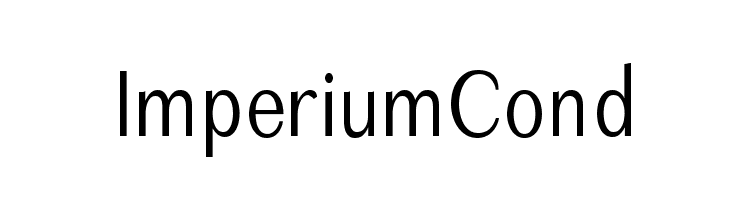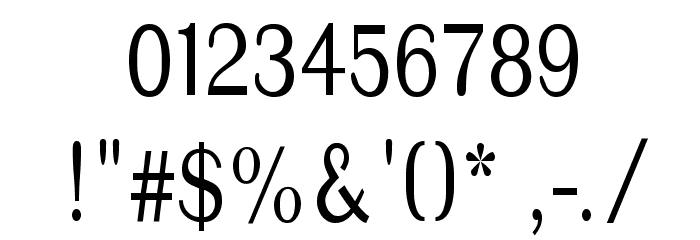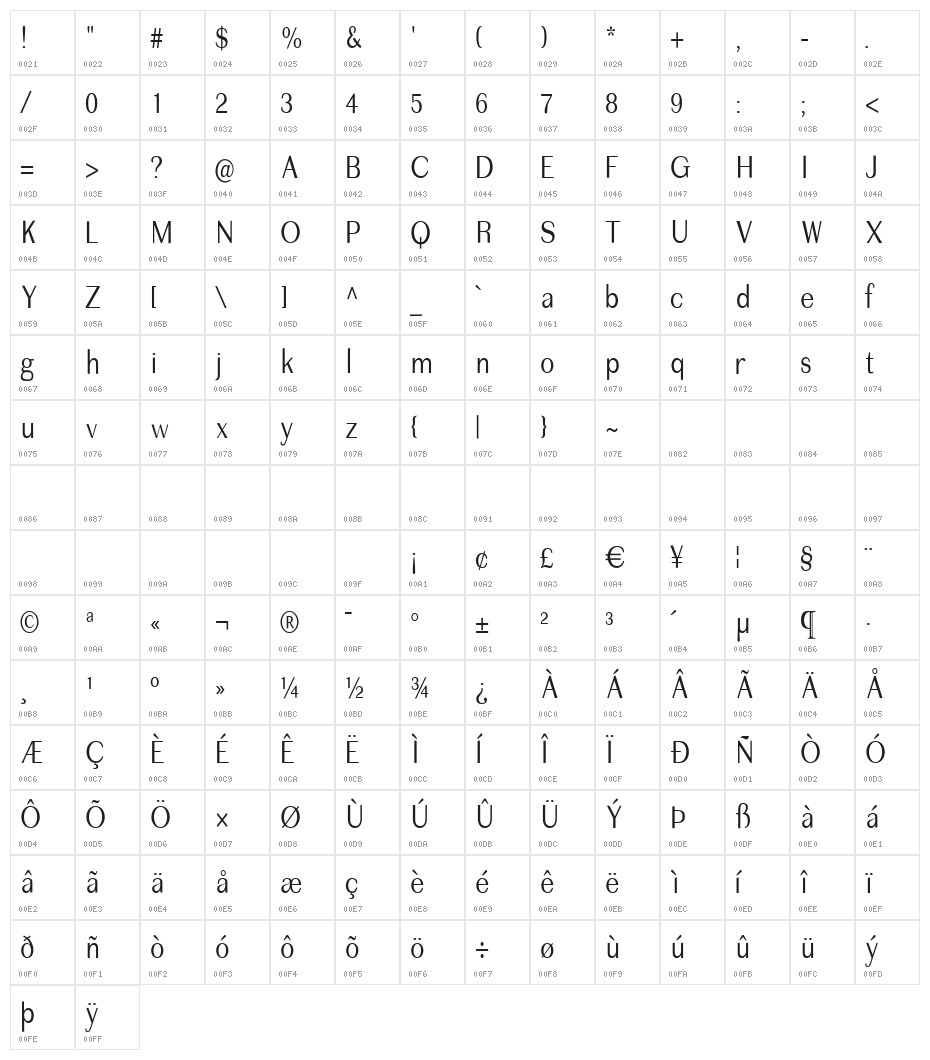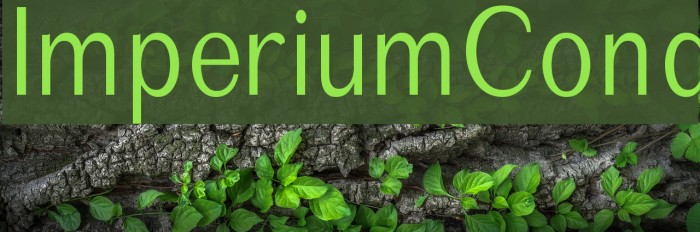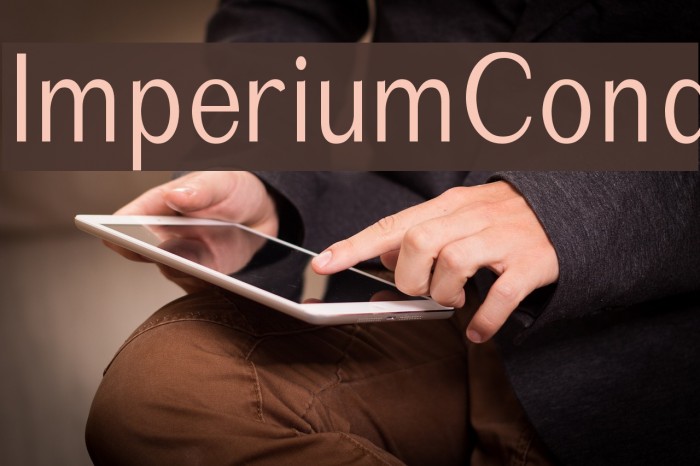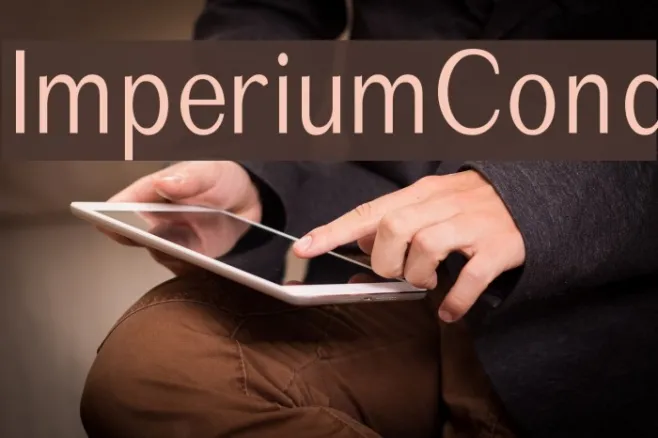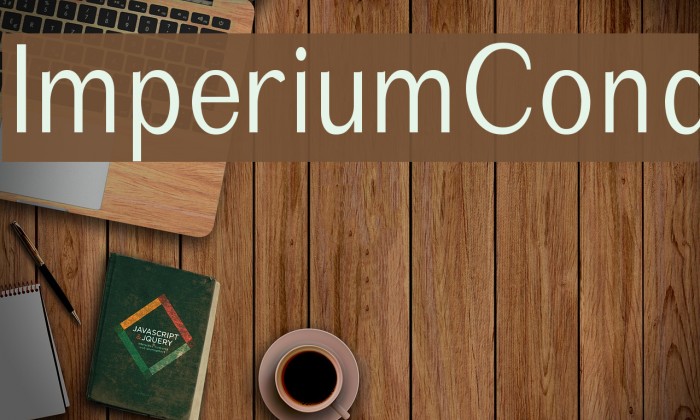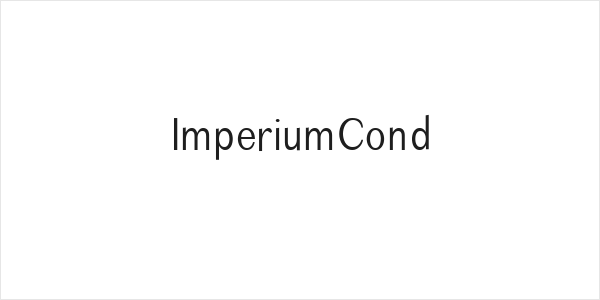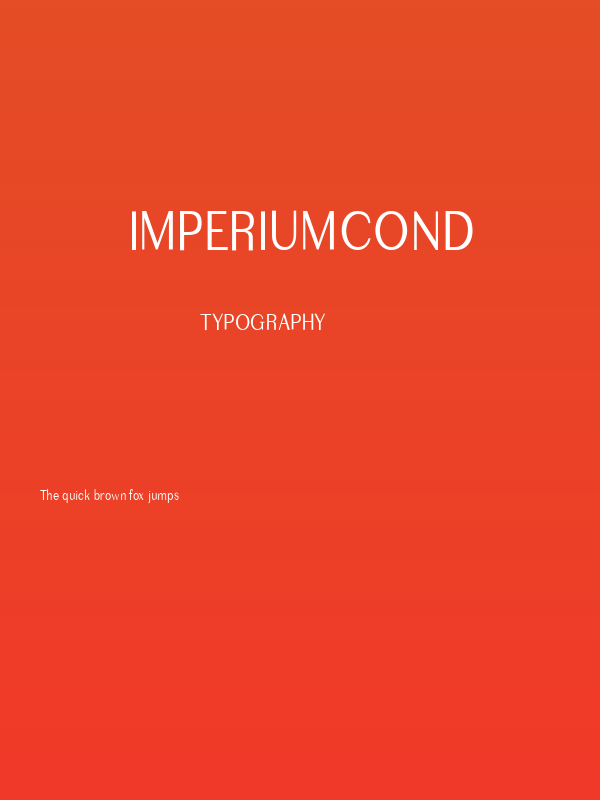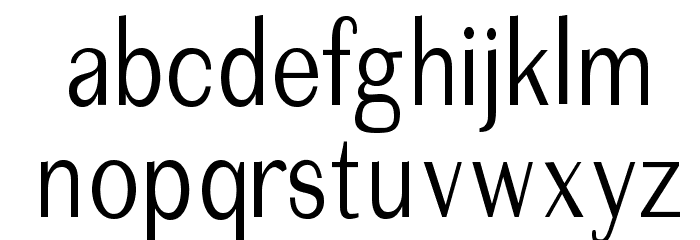
ImperiumCond Font
ImperiumCond Description
This font is a modern sans-serif typeface characterized by its clean and straightforward design. The letters are well-proportioned with a consistent stroke width, giving it a balanced and harmonious appearance. The uppercase letters are bold and commanding, while the lowercase letters maintain a friendly and approachable feel. The numerals are clear and legible, making them suitable for various applications. Special characters are included, providing versatility for different contexts. The overall design is minimalistic, making it ideal for contemporary projects.